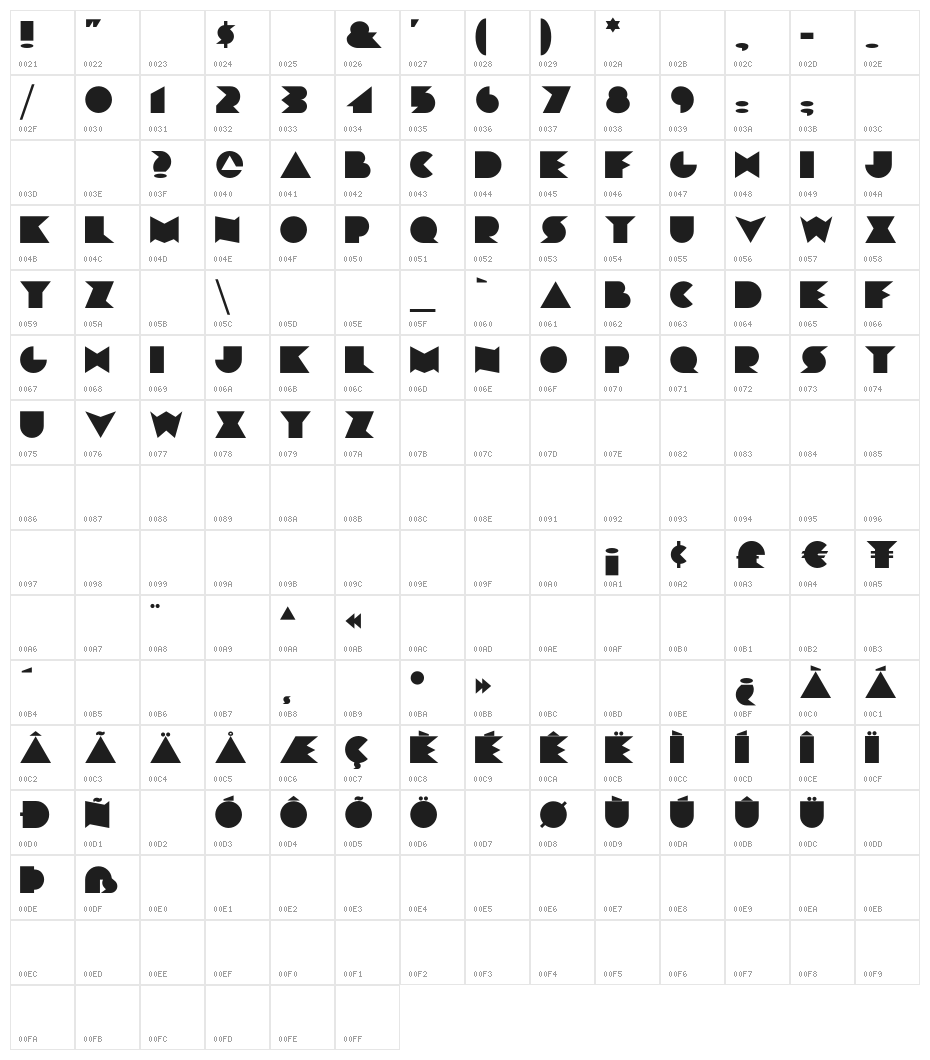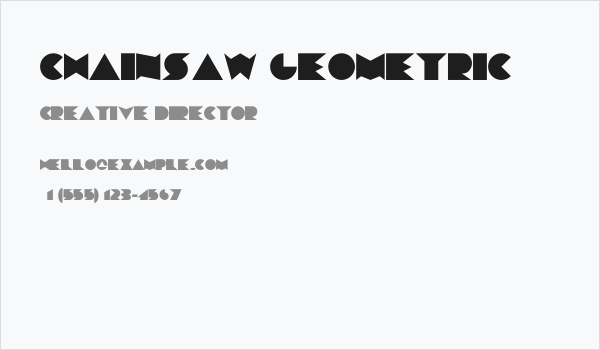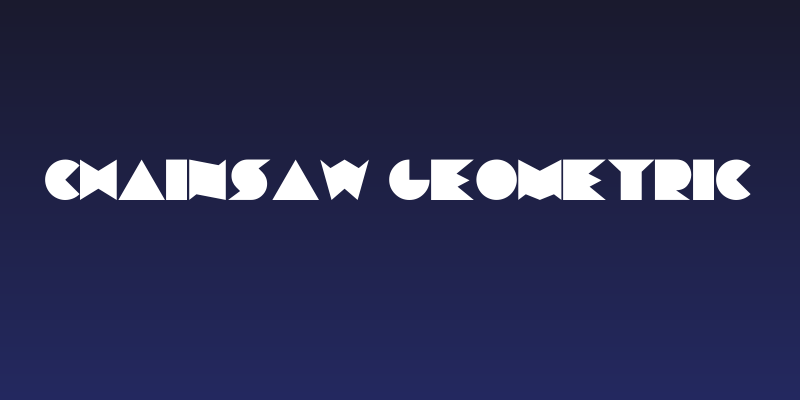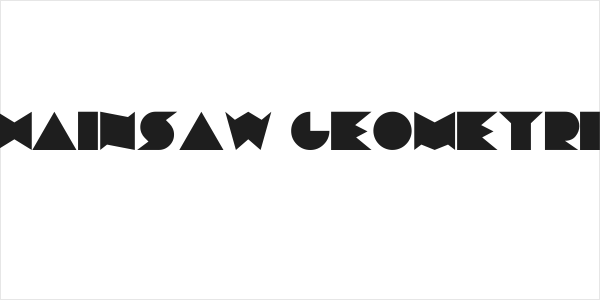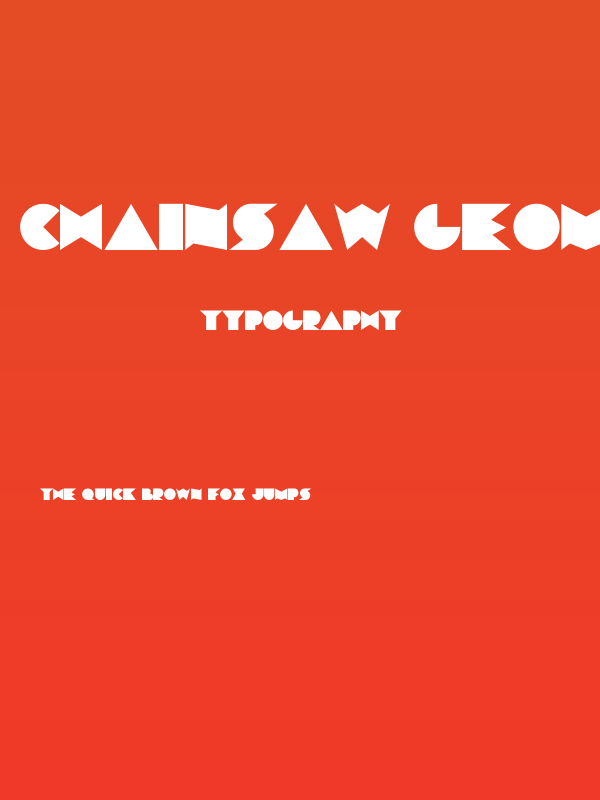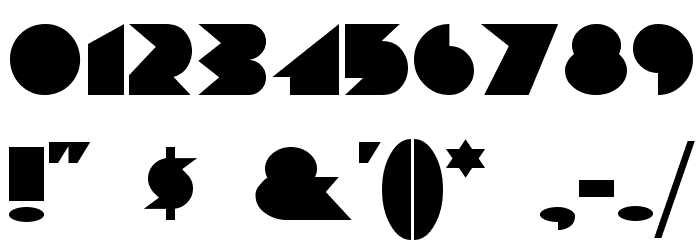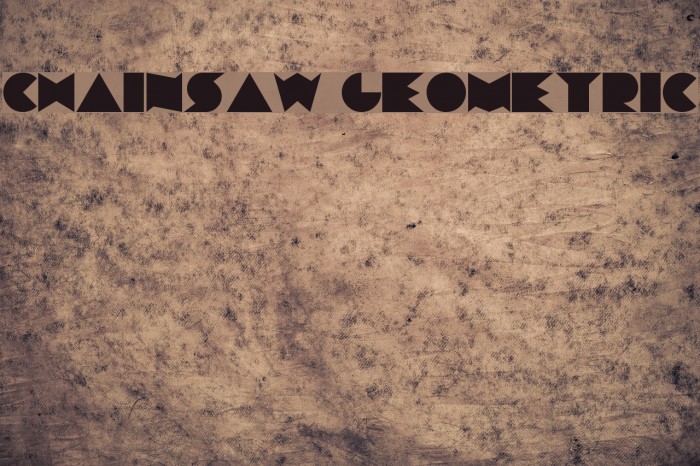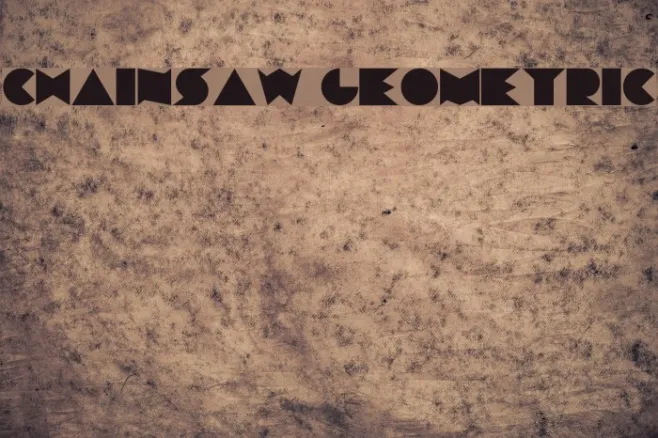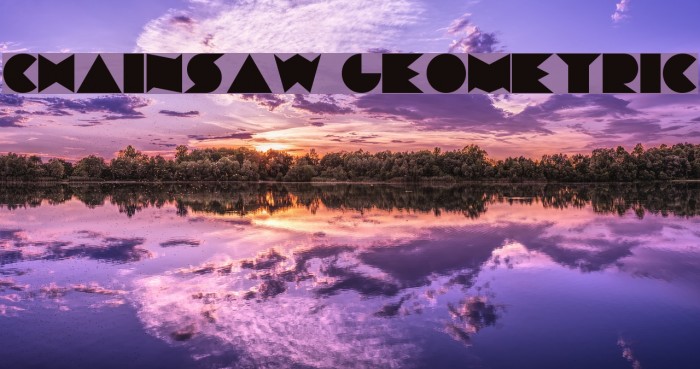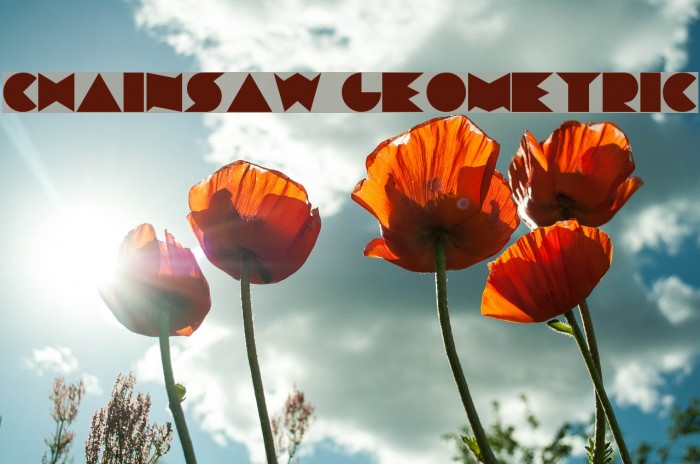
Chainsaw Geometric Font
Chainsaw Geometric Description
This font features a bold, geometric design with sharp angles and a strong visual impact. The characters are constructed with a combination of straight lines and triangular shapes, creating a dynamic and edgy appearance. The uppercase and lowercase letters maintain a consistent style, emphasizing symmetry and uniformity. Numbers and special characters follow the same geometric theme, ensuring a cohesive look across all elements. The font's boldness and unique structure make it stand out, ideal for projects that require a modern and striking aesthetic.